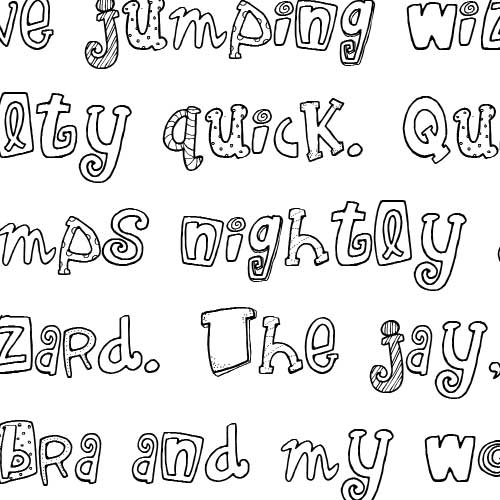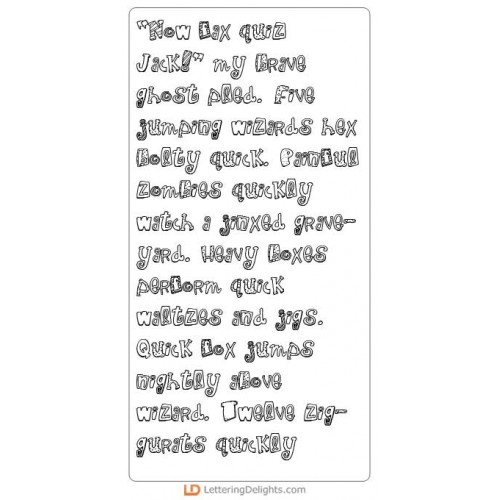
LDJ Jillustration - Font
LDJ Jillustration is a silly font styled with a variety of polka dots. This fun font makes great titles for your digital scrapbook pages.